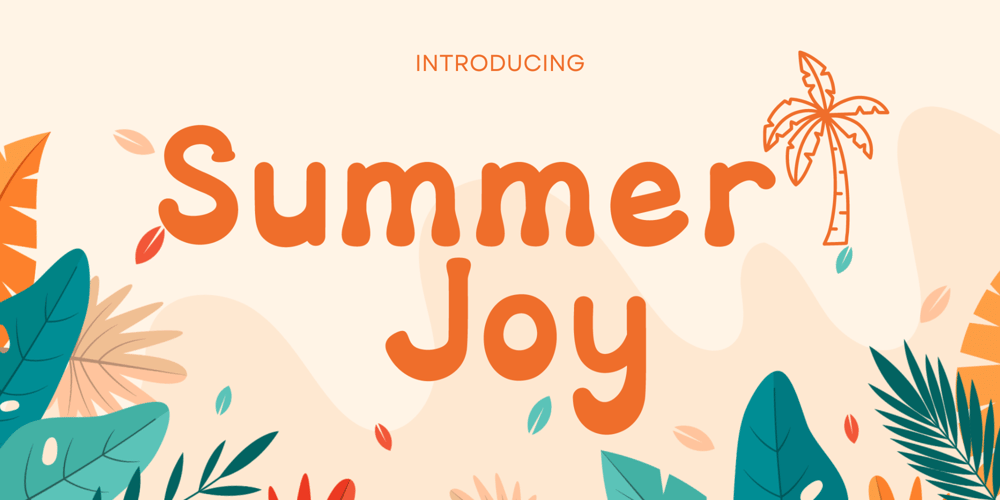
Summer Joy
Summer Joy font
Summer Joy Font Family was designed by Agung Eko Nugroho and published by AEN Creative Studio. Summer Joy contains 2 styles and family package options. Summer Joy is a cute groovy font that will help you enjoy and have fun with your designs. You can design it to match Summer’s holiday theme. Perfect for creating a wide variety of new designs to match products such as T-shirts, pillows, banner, mugs, cards, stationery, social media posts, and more!